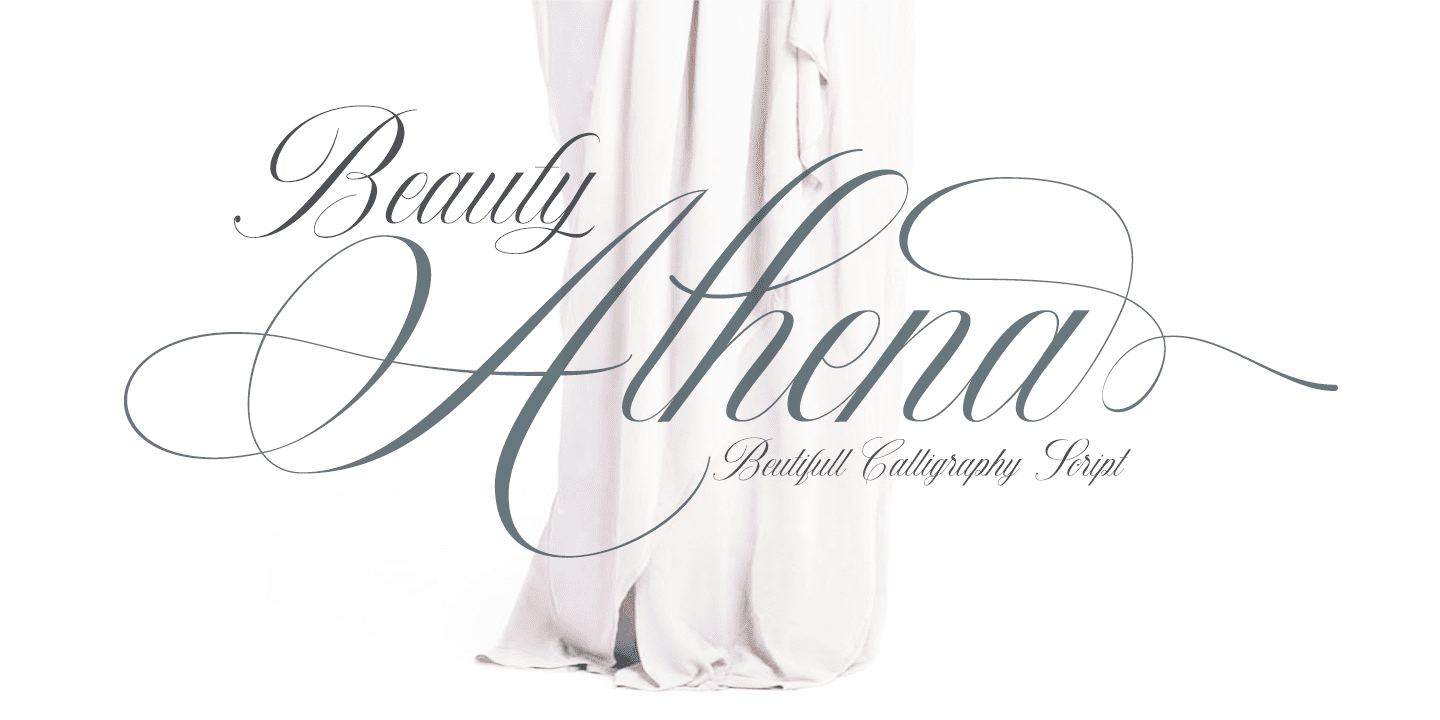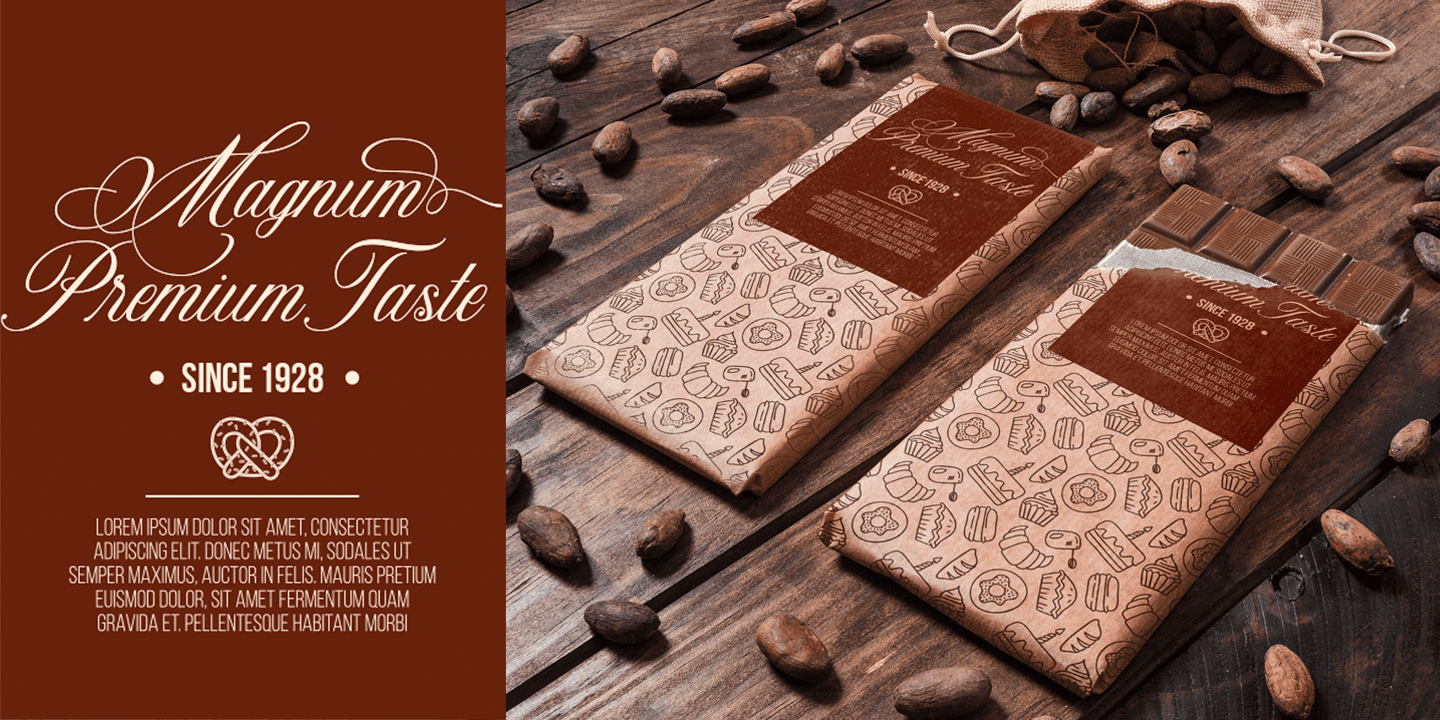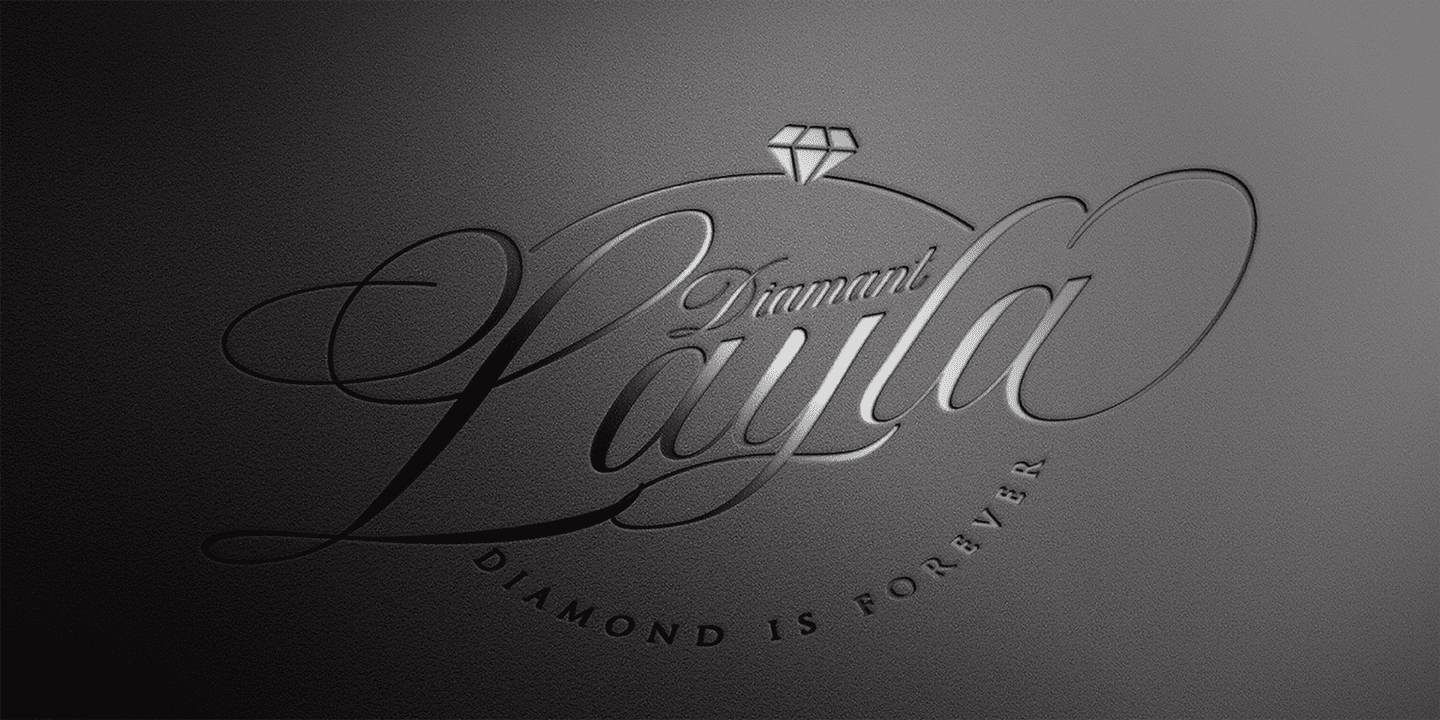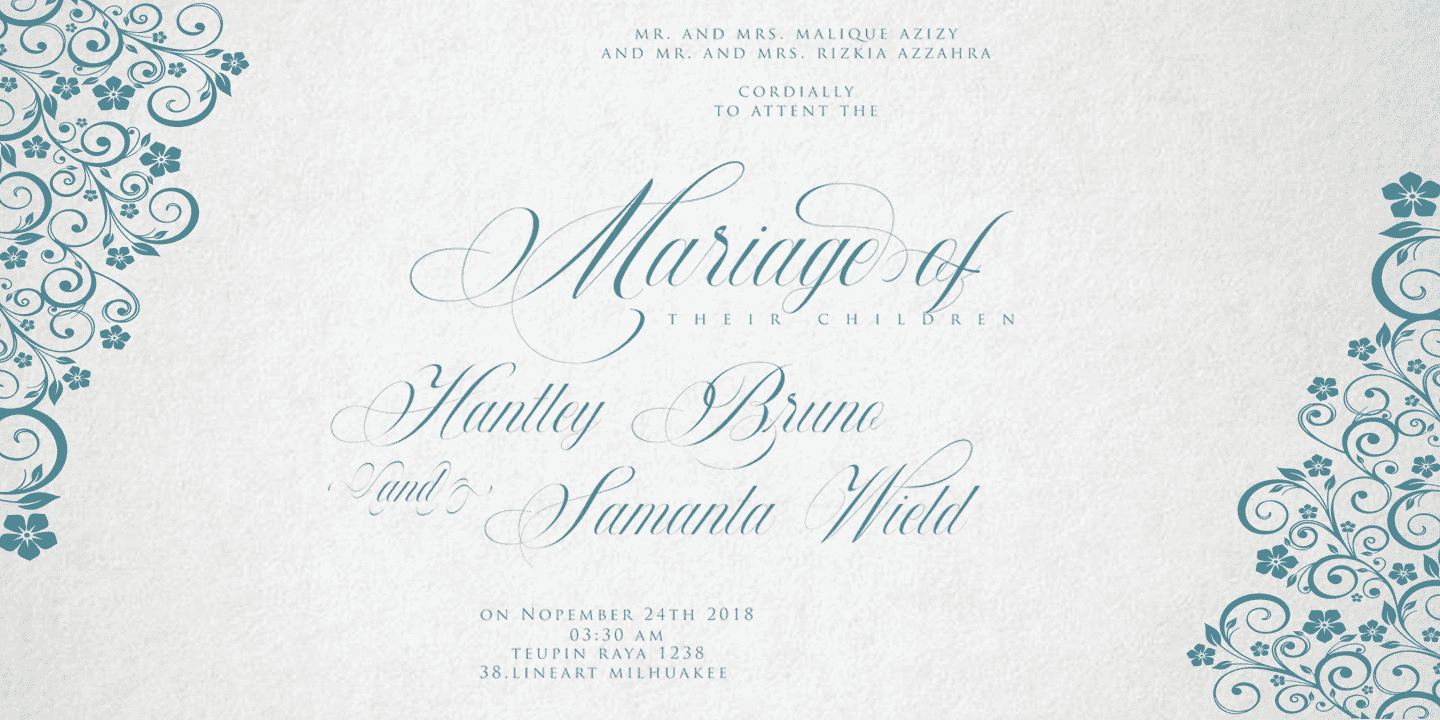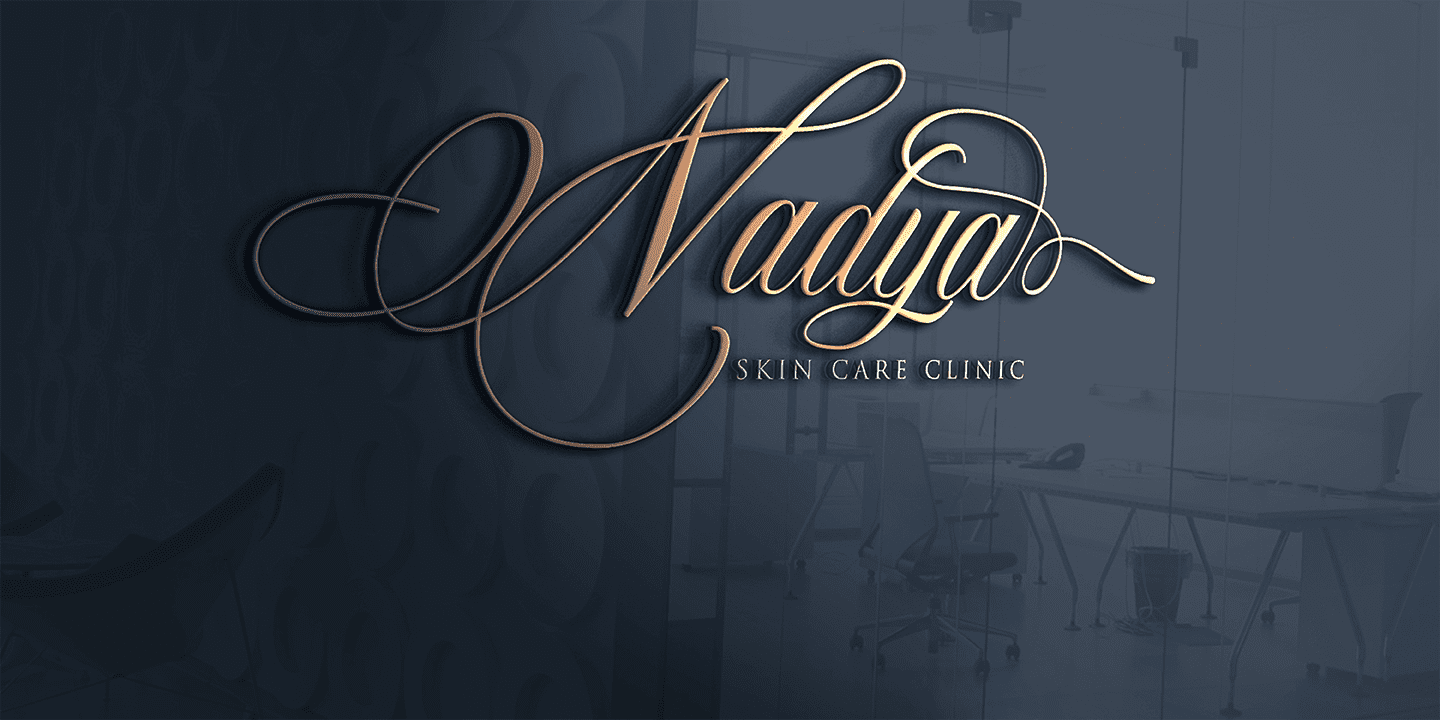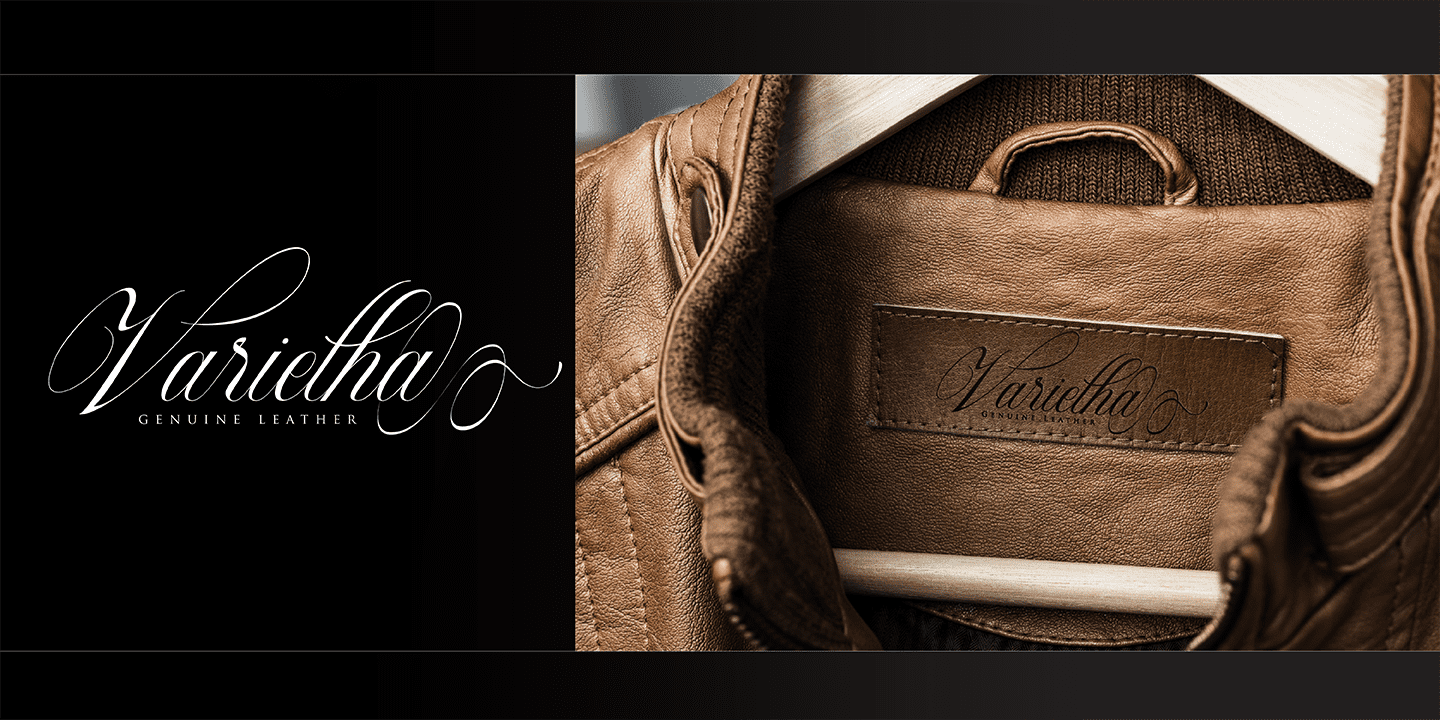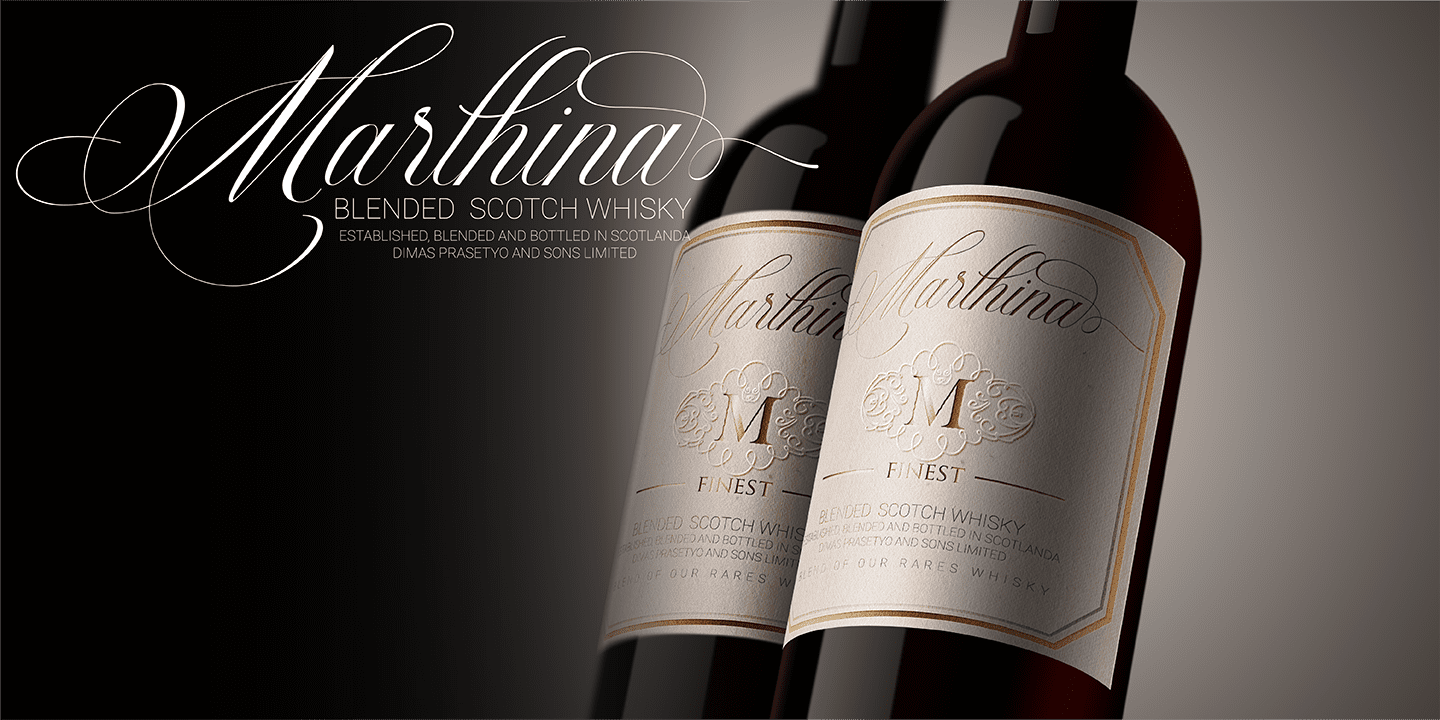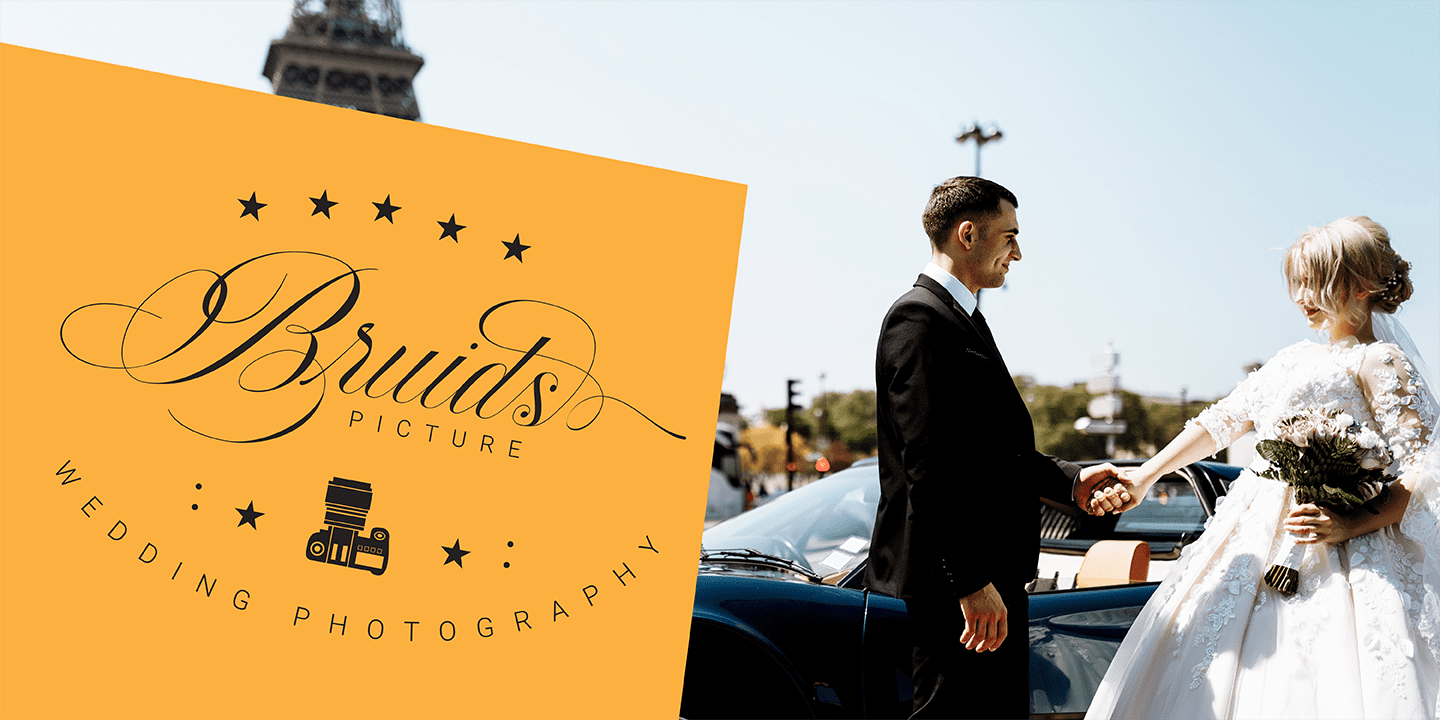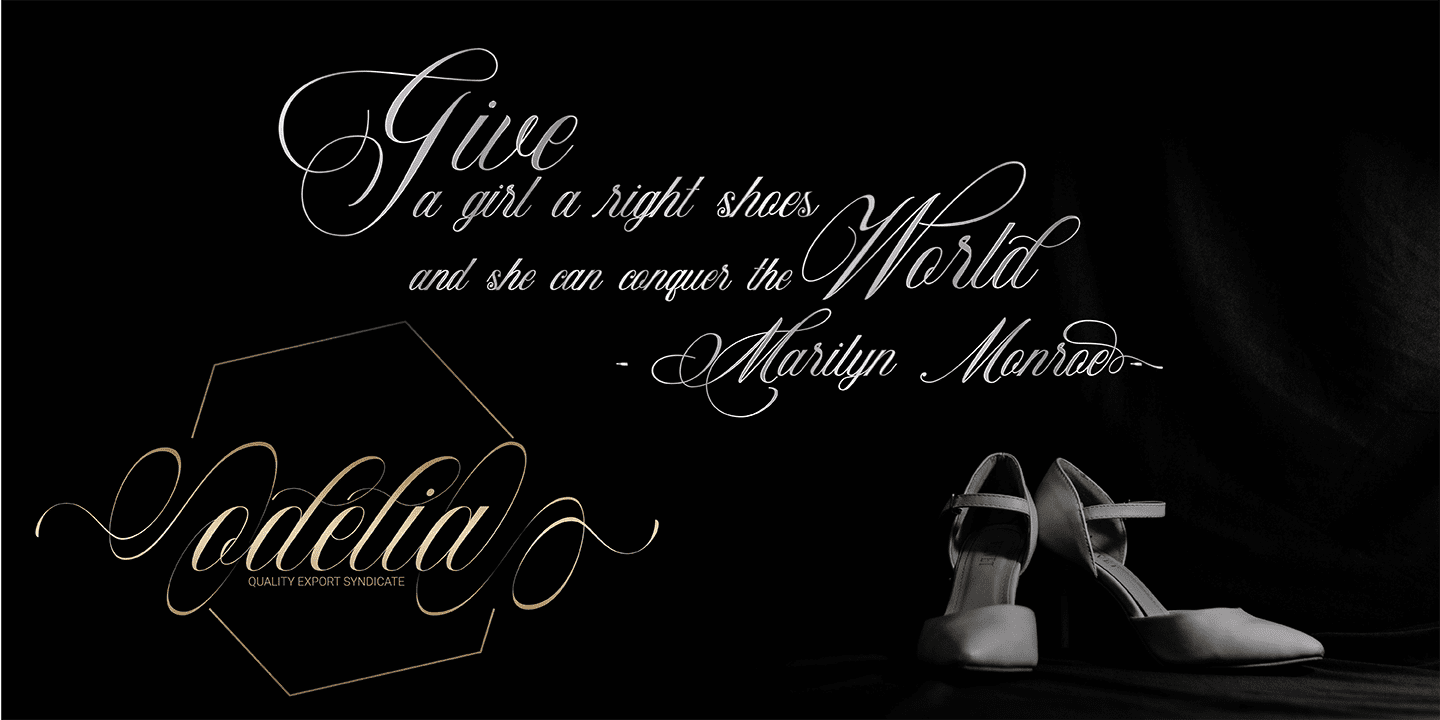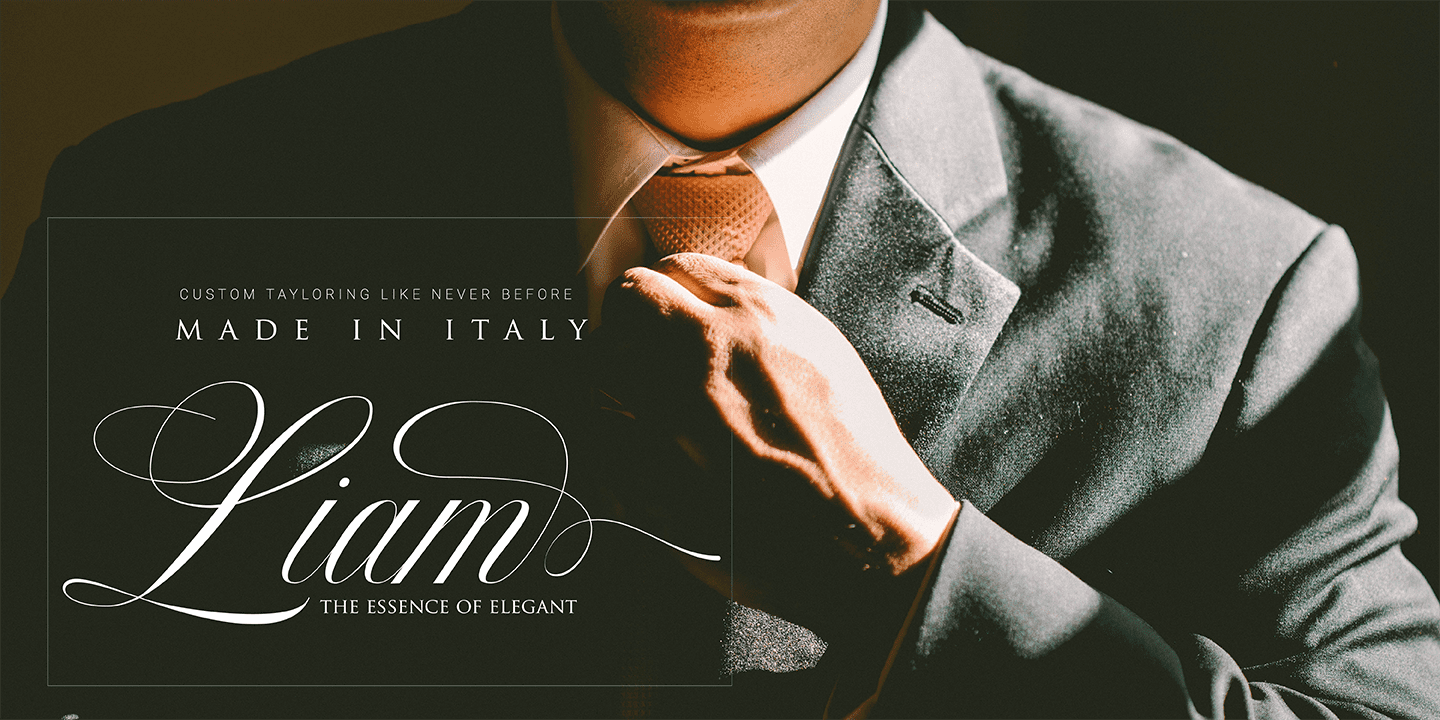
Introducing the OpenType font ‘Athena’, the beautiful calligraphy script. It’s inspired by Athena, goddess of wisdom, courage, inspiration, mathematics, strength, strategy, the arts, crafts, and skill. Athena font is simple and easy to read because of its many letter connections. Use it for either modern minimalism or classic penmanship styles. Both of these styles can be applied in various forms such as invitations, labels, restaurant menus, logos, fashion, make up, stationery, novels, magazines, books, greeting / wedding cards, packaging, letterheads and more. ‘Athena' includes several alternate characters, numerals & punctuation, and language support.